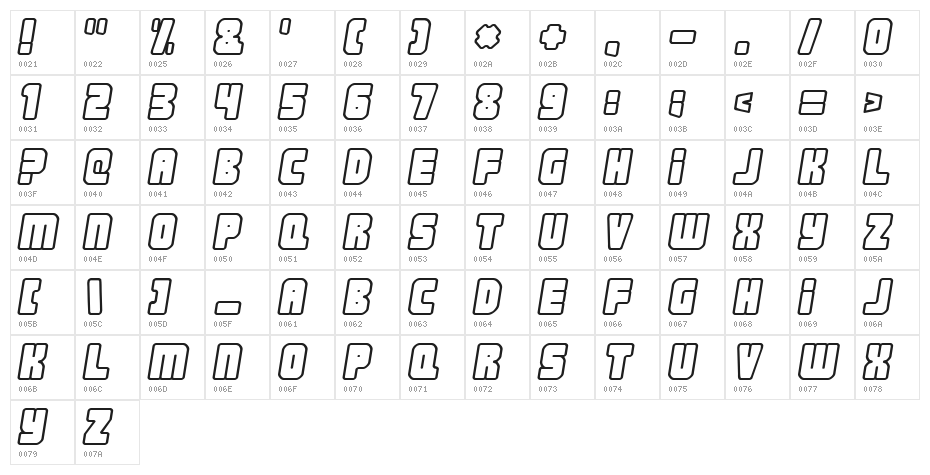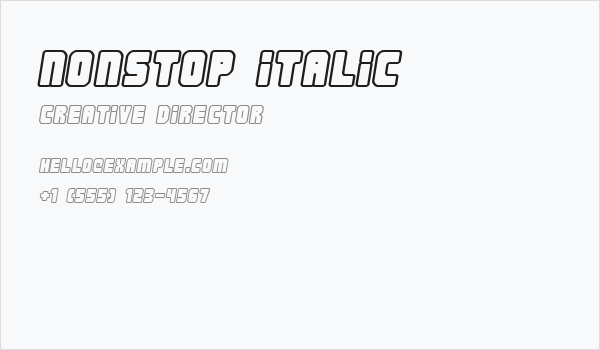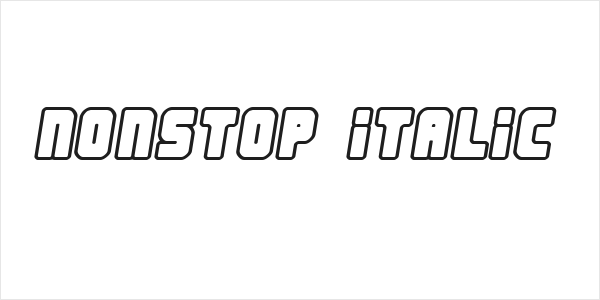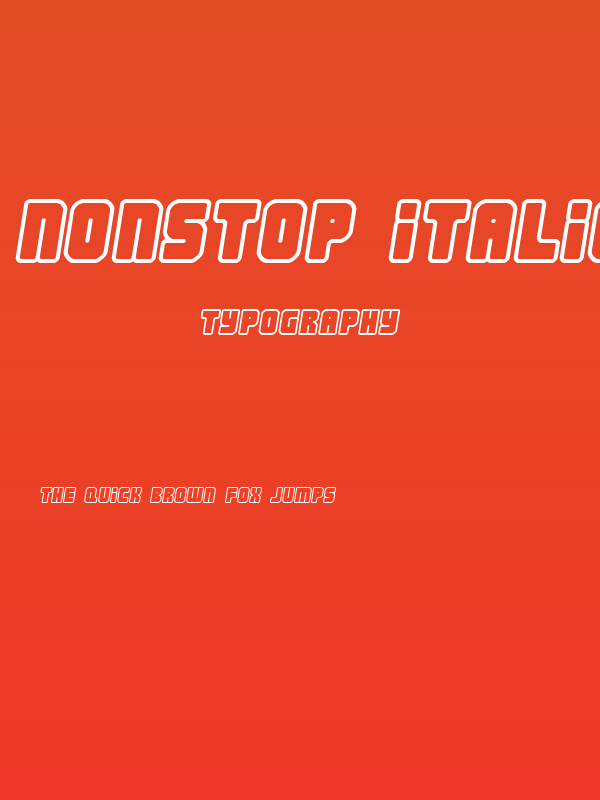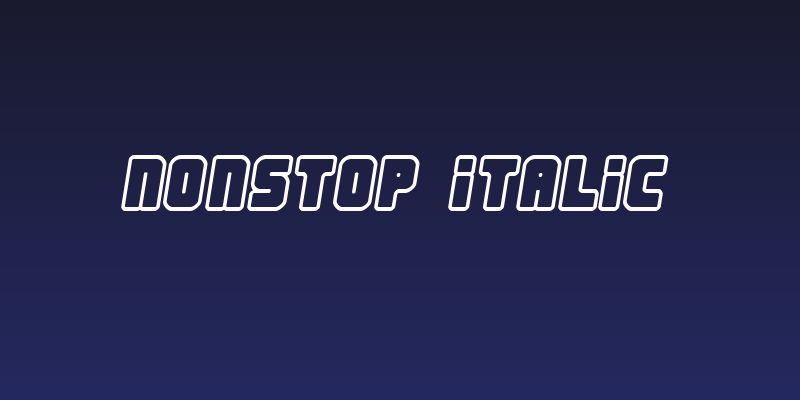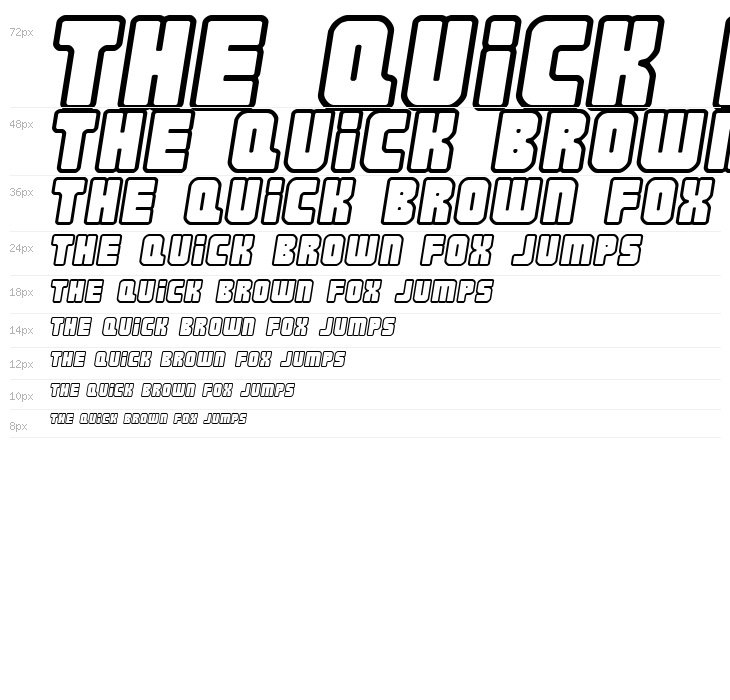
Nonstop italic Font
Nonstop italic Description
This font features a bold, outlined style with a modern and dynamic appearance. The characters are slightly italicized, giving them a forward-leaning posture that suggests movement and energy. The uppercase and lowercase letters maintain a consistent geometric structure, with rounded edges and a uniform thickness throughout. The numbers and special characters follow the same design principles, ensuring a cohesive look across all glyphs. The font's outline style adds a unique dimension, making it stand out in various design contexts.
| Proposed Projects | Ideal for sports branding, dynamic posters, modern advertisements, and digital media projects. |